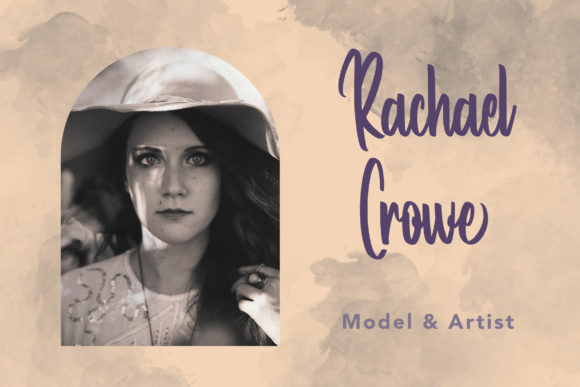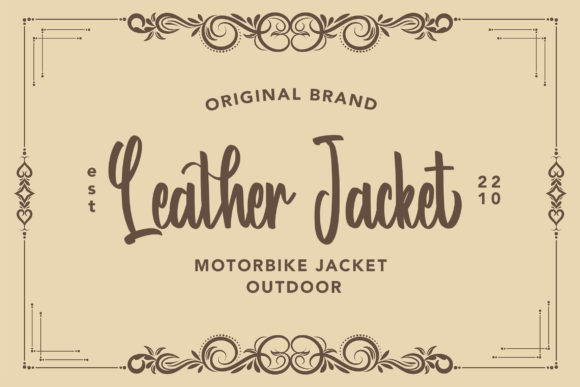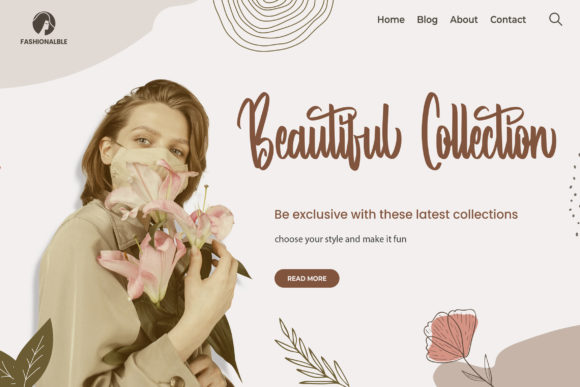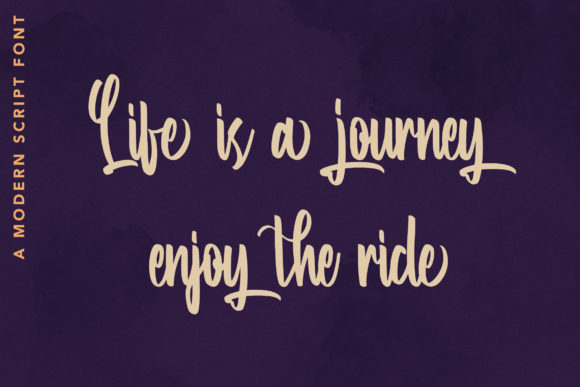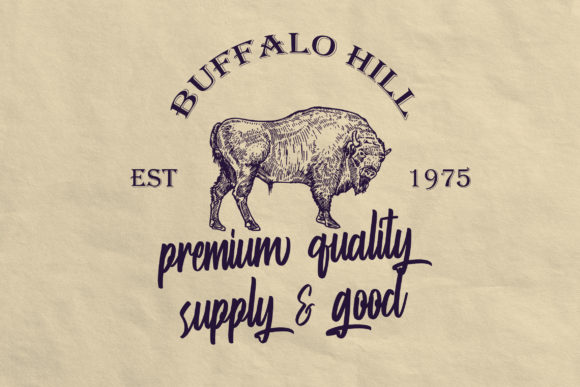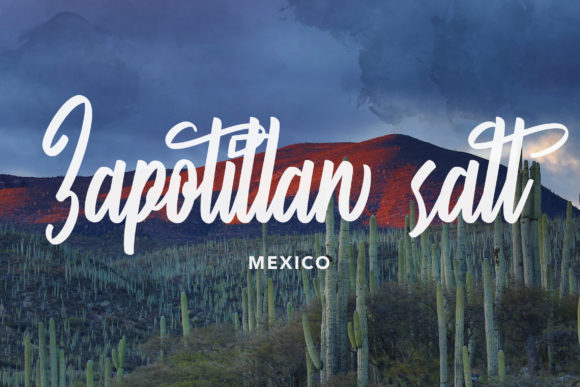
Introduction to Hodgetown Font
As a designer, there’s nothing quite like the thrill of bringing a project to life. The rush of creativity, the satisfaction of seeing your ideas take shape – it’s a feeling that never gets old. And sometimes, all it takes is the right font to elevate your design from good to great. That’s where the Hodgetown Font comes in, a gorgeous and bold handwritten font that’s sure to add a stylish touch to your headlines and logotype projects.
With its strong, confident, and dynamic feel, the Hodgetown Font is the perfect addition to any design resource. Whether you’re working on a creative project from scratch or looking to add a touch of nostalgia to an existing design, this high-quality font is sure to deliver. And the best part? It’s available for free download, complete with a transparent background that makes it easy to integrate into any design.
Key Features of Hodgetown Font
- Unique, modern font with a transparent background, perfect for adding a touch of elegance to any design.
- Available in a range of sizes, from 12 to 72 points, making it versatile for use in various creative projects.
- Features a high resolution of 300 DPI, ensuring crisp and clear text display.
- Designed to be highly legible, making it perfect for use in body text, headings, and titles.
- Comes with a comprehensive character set, including uppercase and lowercase letters, numbers, and punctuation marks.
Honest Review: Hodgetown Font
I recently had the chance to try out the Hodgetown Font, and I must say it’s been a great addition to my design resource library. As a designer, I’m always on the lookout for high-quality fonts that can elevate my creative projects.
The Hodgetown Font is a fantastic choice for any designer looking for a versatile and modern font. The font comes with a free download option, which is always a bonus. I’ve found it to be incredibly useful for creating engaging content, from social media posts to presentations.
- High-quality design that’s perfect for modern projects
- Transparent background option for seamless integration
However, I do have a few limitations to note: ⚠️
- Not ideal for projects that require a more traditional or vintage aesthetic
- Limited customization options
Overall, I’m thoroughly impressed with the Hodgetown Font. Its modern design and high-quality features make it a great addition to any designer’s library. While it may not be perfect for every project, I highly recommend giving it a try for your next creative endeavor.
Tips for Getting the Most Out of Hodgetown Font
To get the most out of the Hodgetown Font, use it on a transparent background to create a clean and minimalist design. You can also experiment with different font sizes and colors to add visual interest to your project.
Common Use Cases for Hodgetown Font
The Hodgetown Font is suitable for a variety of design projects, including logos, business cards, and marketing materials. Its high-quality design and transparent background make it an ideal choice for creative professionals and hobbyists alike.